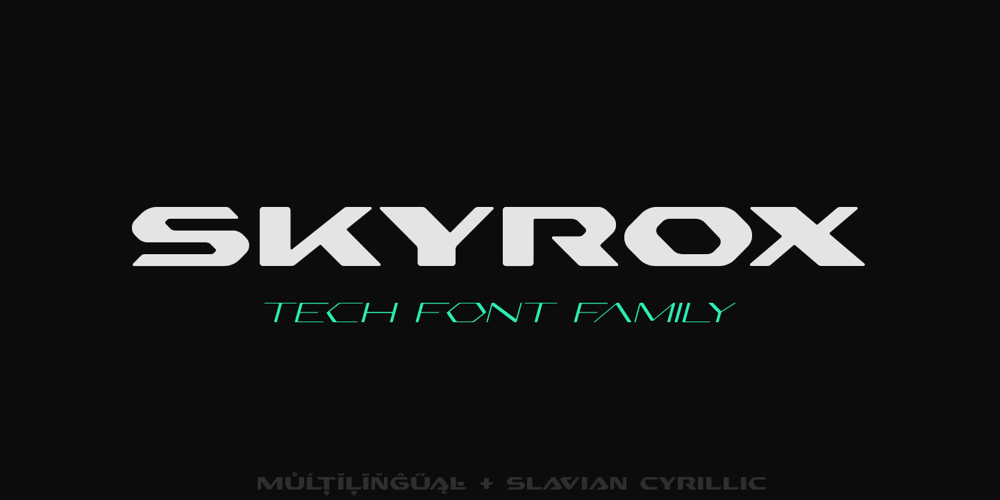
Skyrox Tech
Skyrox Tech font
Skyrox Tech Font Family was designed by Dmytro Poliakh and published by Sentavio. Skyrox Tech contains 13 styles and family package options. Skyrox Font creates modern futuristic hi-tech atmosphere and style.It is created basing on Font Family of 12 styles (Hairline, Bold, Condensed, etc.) which allows Skyrox looks good as Headline and as Text both.Multilingual support (Latin Pro & Slavic Cyrillic).